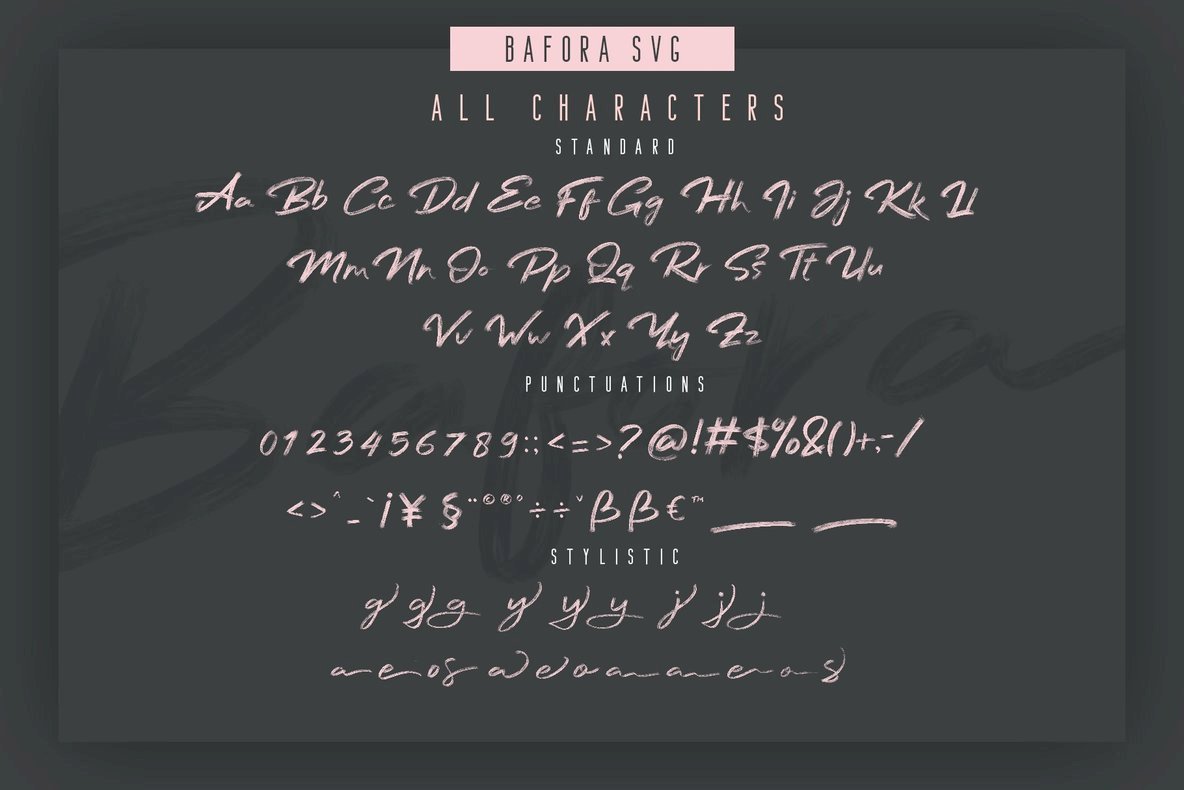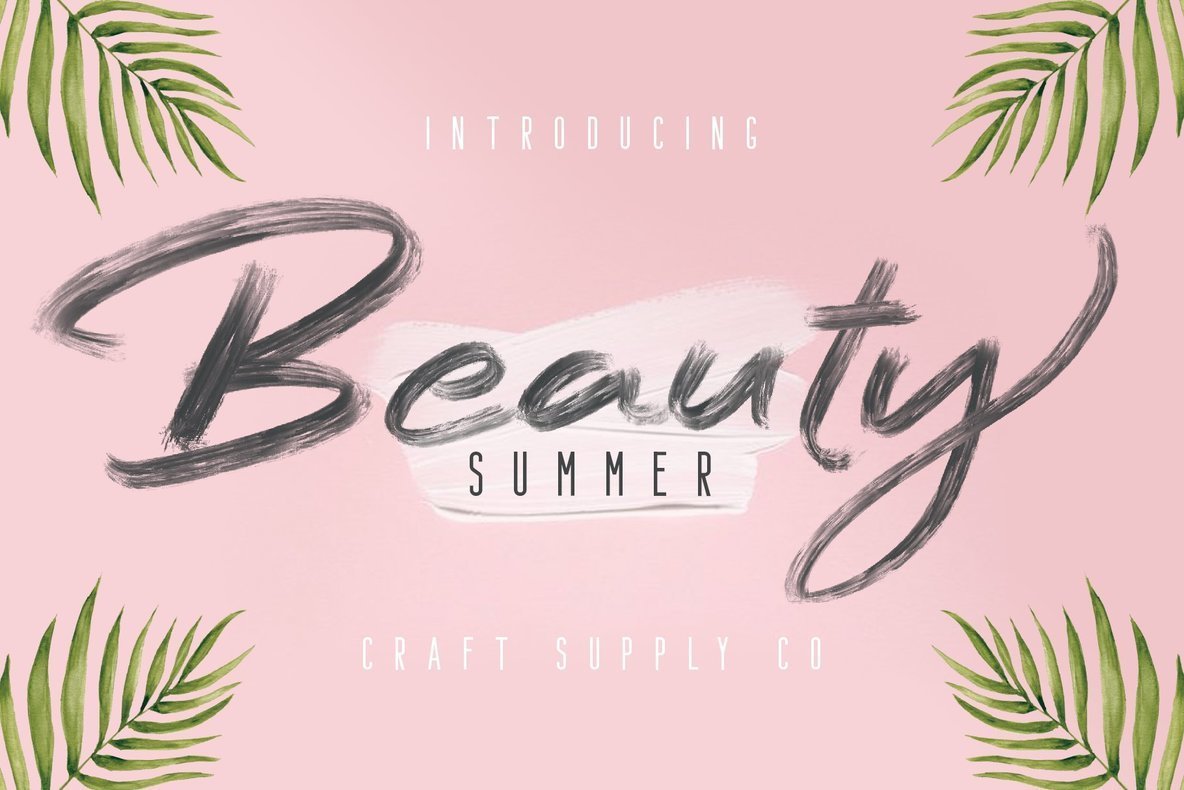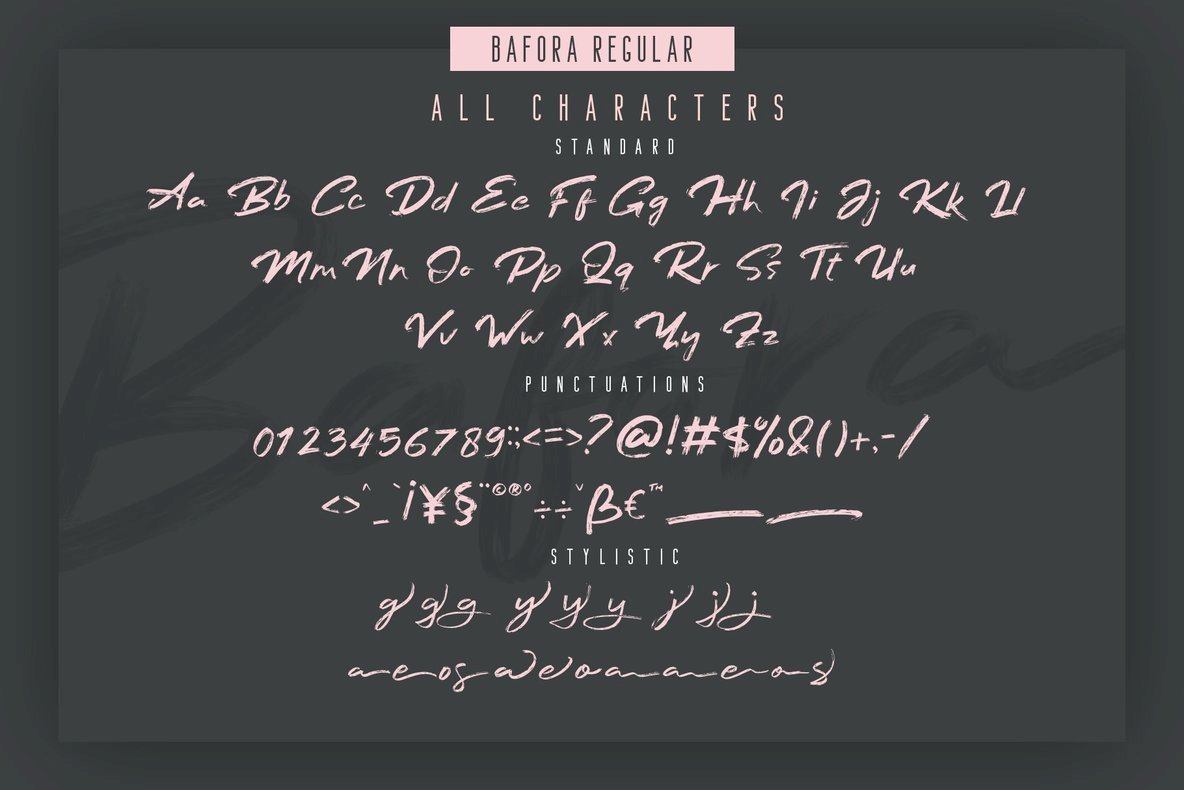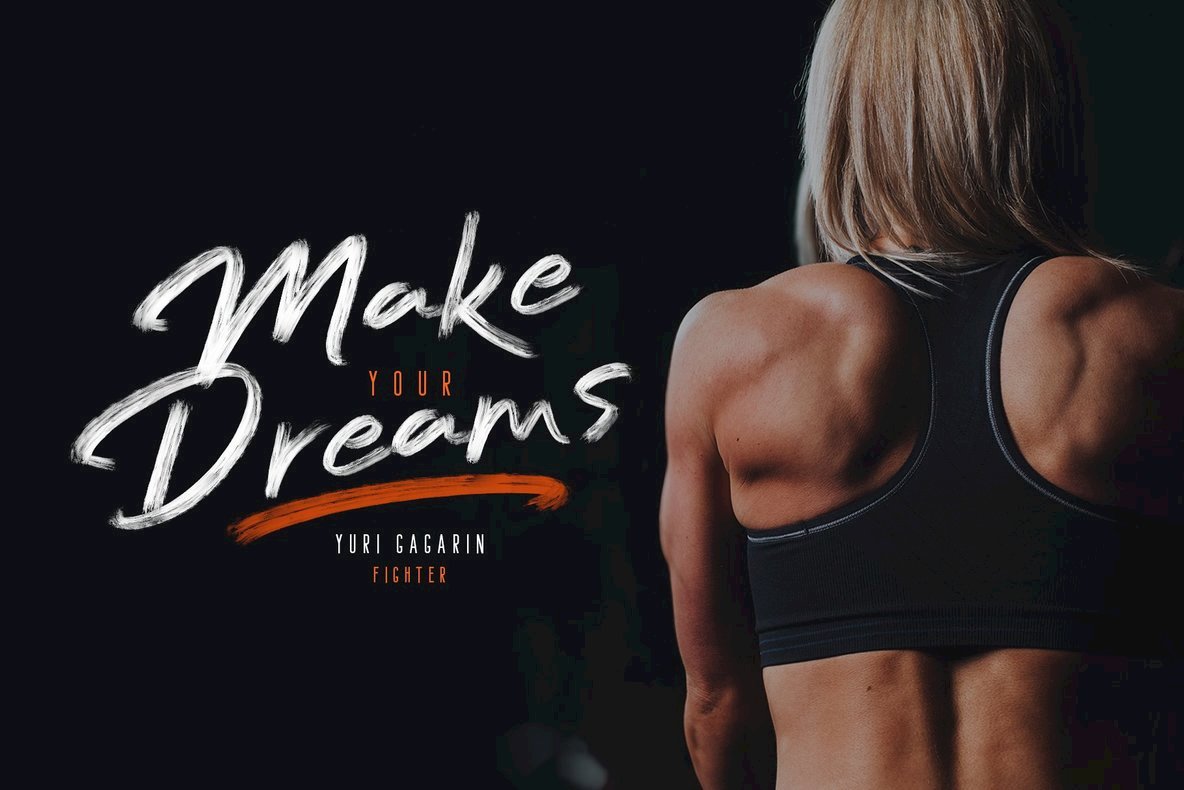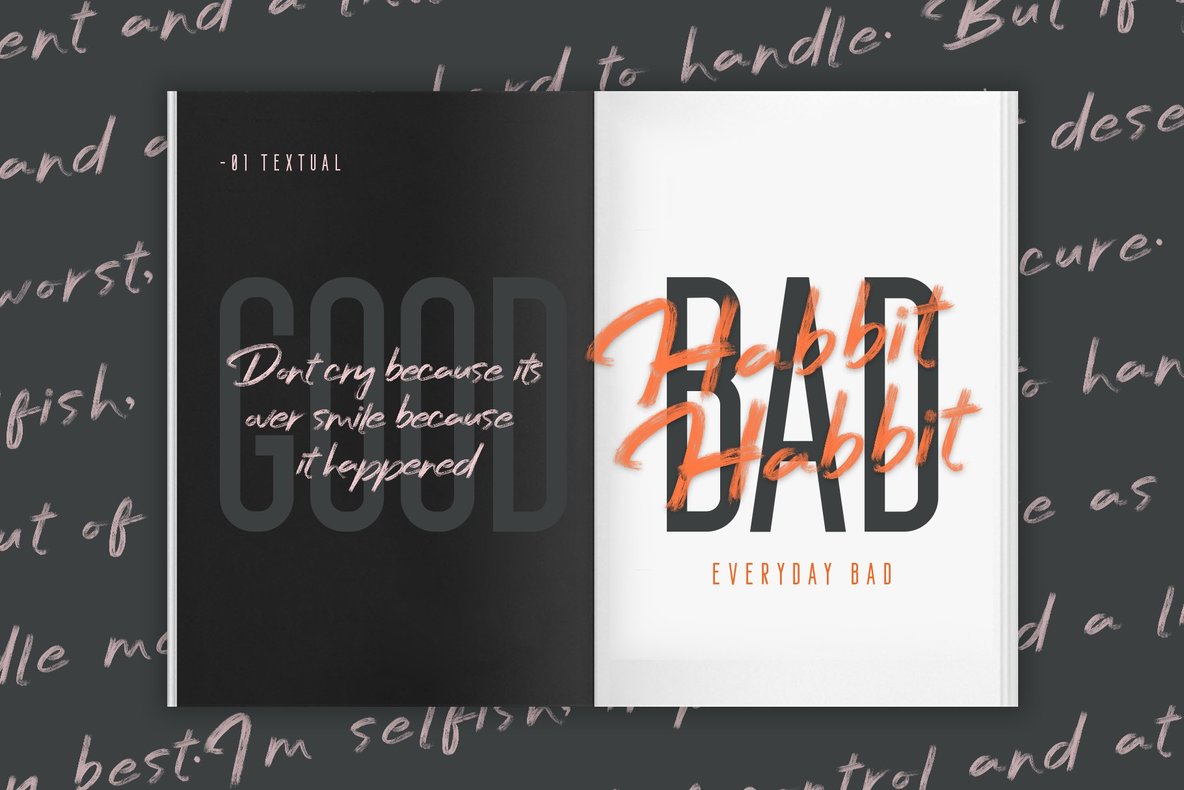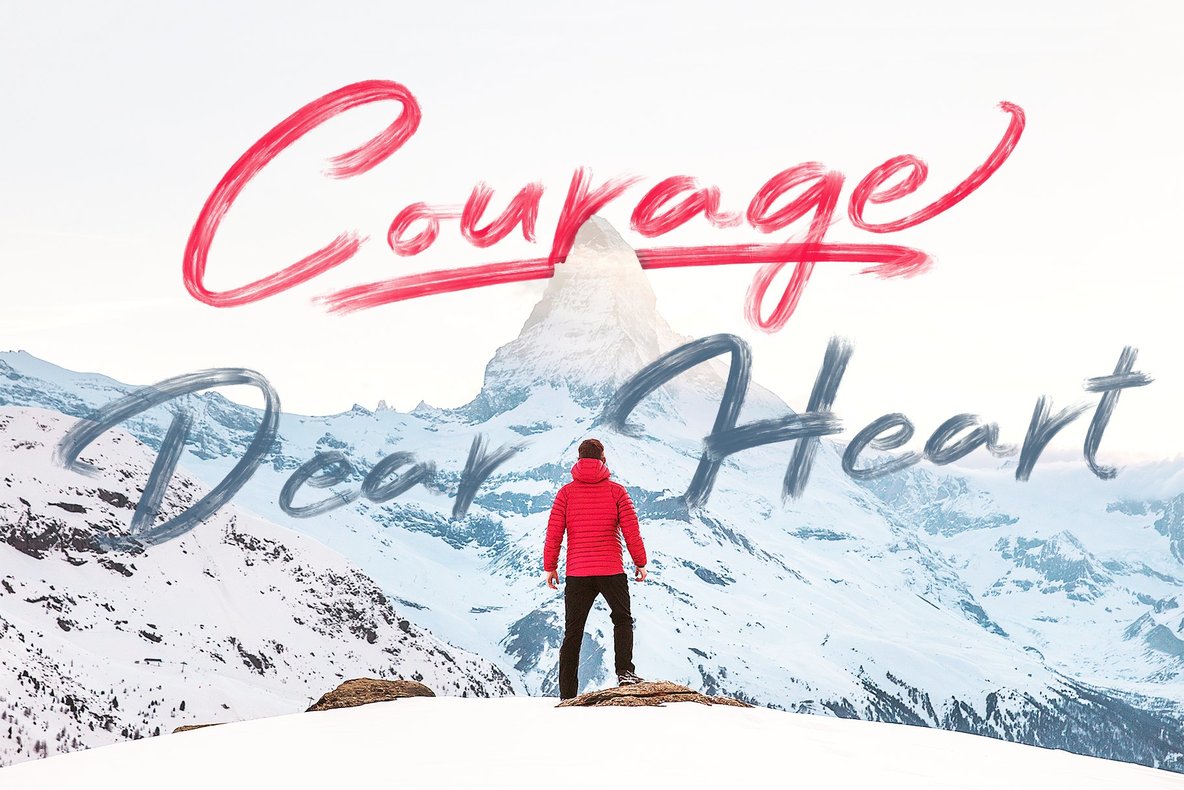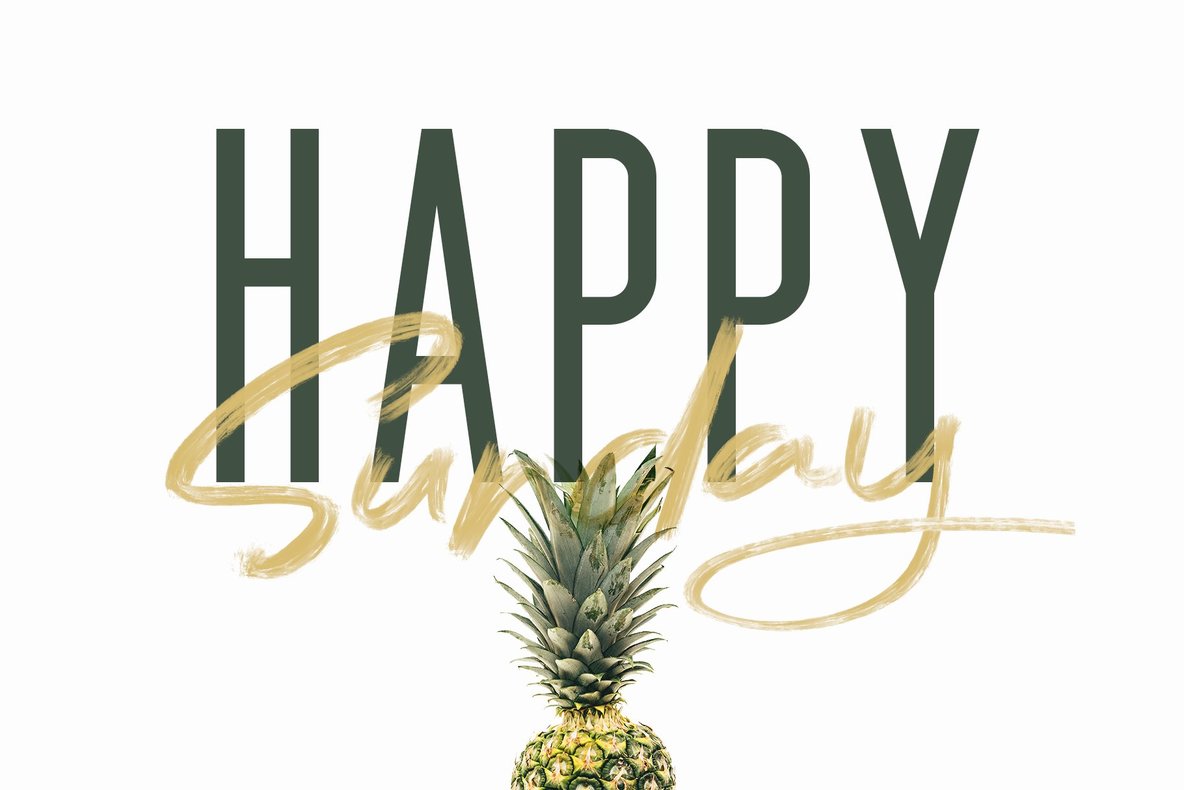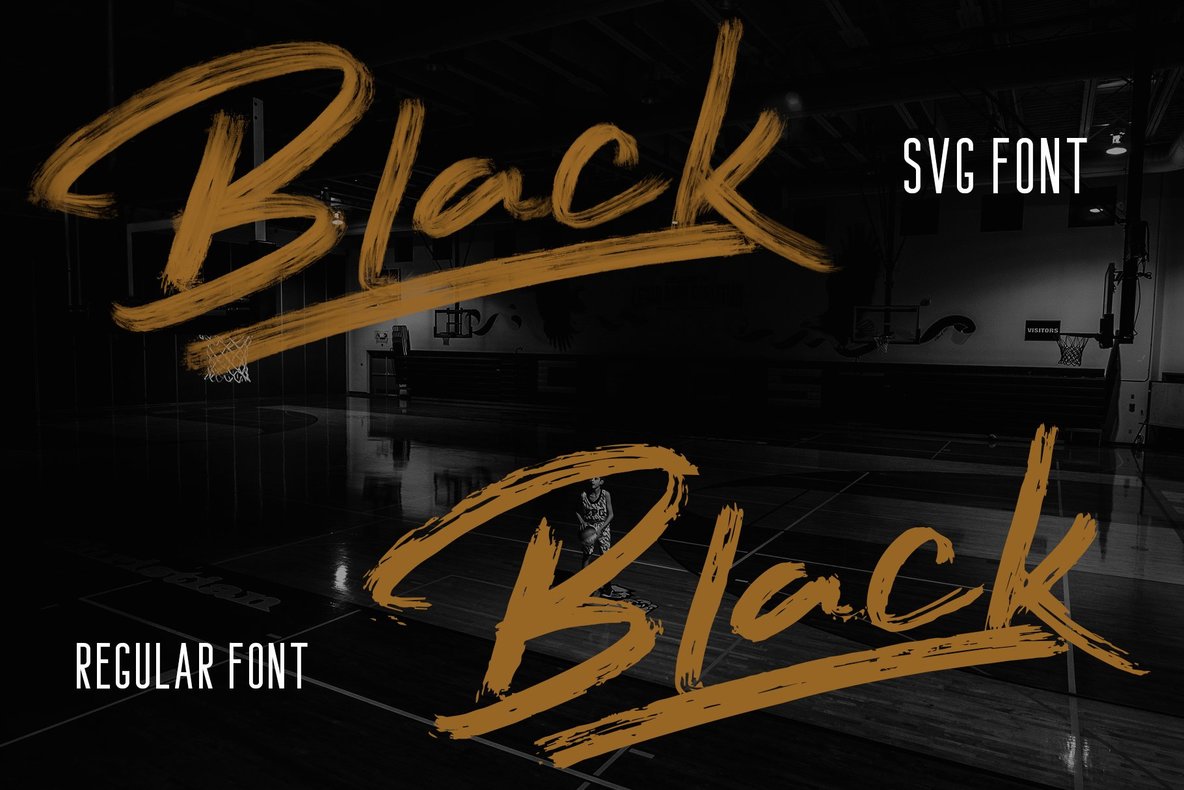
Bafora - SVG Font
Introducing Bafora - SVG Font, we really like the diversity of colors. we also like something modern. we try to combine these 2 things into a work opentype SVG font. Then ..... here it is :) an excellent SVG opentype font for display purposes, Bafora - SVG Font is a attractive contemporary typeface drawn from scratch with brand-new, more vigorous detailing — and SVG variations for multiple use.
Bafora - SVG Font is suitable for Logo, greeting cards, quotes, posters, branding, name card, stationary, design title, blog header, art quote, typography art, modern envelope lettering or book design.
Bafora - SVG Font also suitable for happening style like handdrawn design or watercolor design theme, craft design, any DIY project, book title, wedding font, pop vintage design, or any purpose to make our art/design project look pretty and trendy.
Bafora Regular
Bafora SVG
Bondie Regular